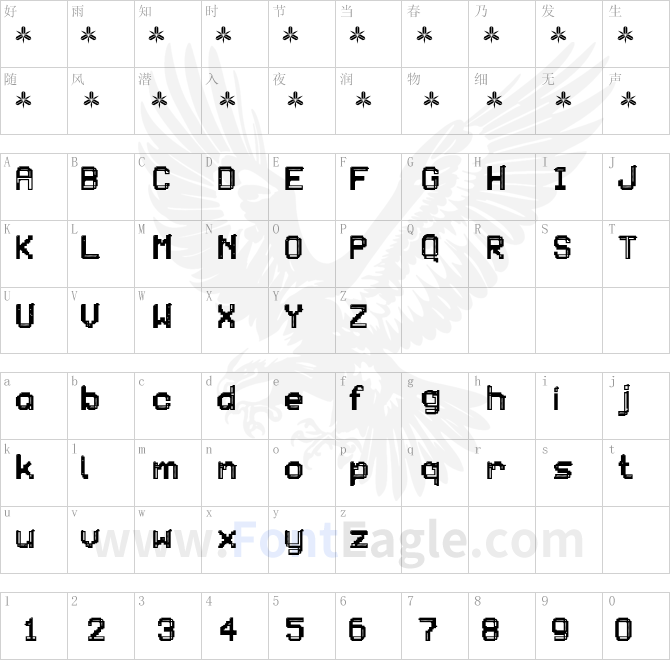
PATCHCRACK Regular.otf Font Image
PATCHCRACK Regular.otf Base Font Information
- Font name:PATCHCRACK
- Font Full Name:PATCHCRACK
- Postscript:PATCHCRACK
PATCHCRACK Regular.otf Characters Sample